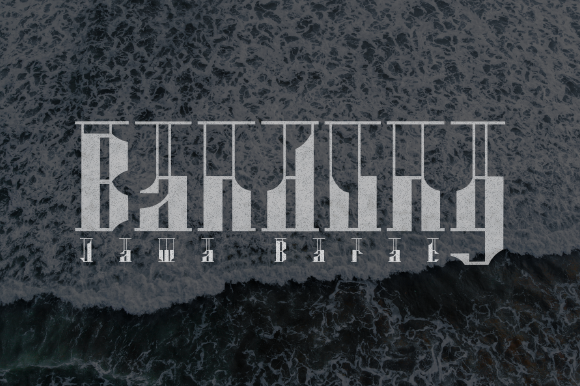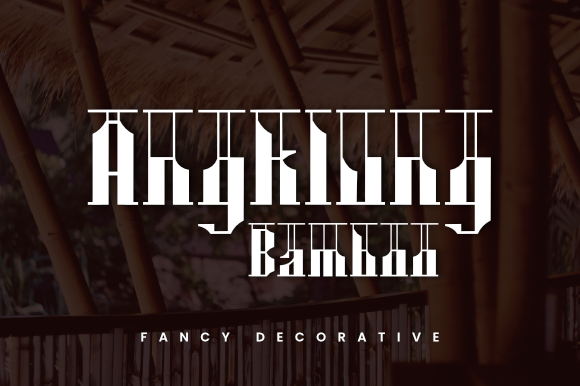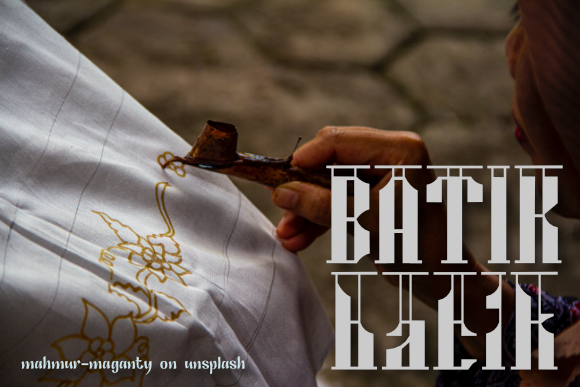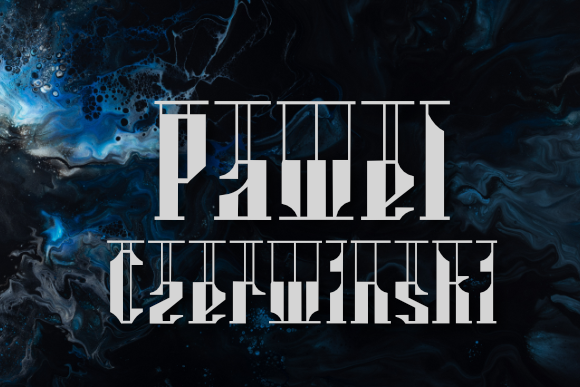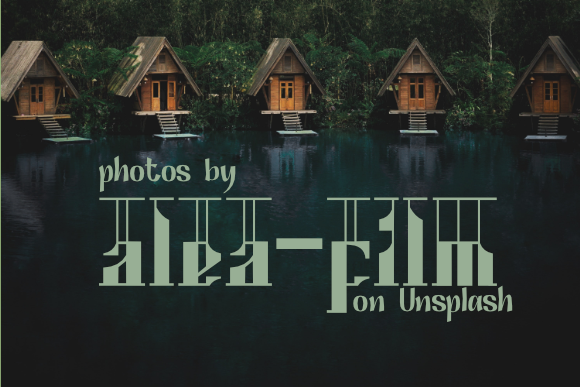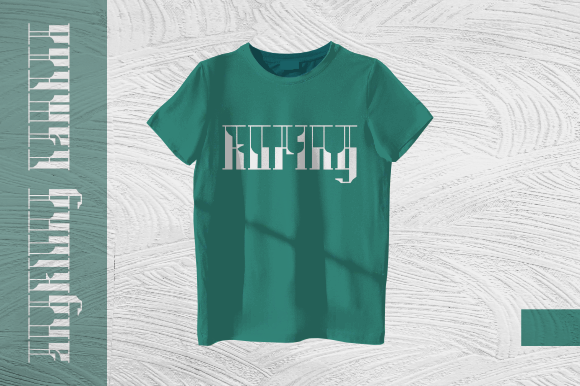
Discover the Unique Charm of Angklung Bamboo Font
In the world of typography, a good font can make all the difference in the success of a design project. For designers and crafters looking for a bold, distinct, and original display font, Angklung Bamboo is an excellent choice. This unique font is sure to enhance any creation, regardless of the topic or theme. In this article, we’ll explore the features and benefits of Angklung Bamboo Font and why it’s a wonderful asset to your font library.
What is Angklung Bamboo Font?
Angklung Bamboo Font is a bold and eye-catching display font that is inspired by the traditional Indonesian musical instrument, Angklung. The font features a distinctive and original design, with bold lines and a unique texture that gives it a natural, handmade feel. The font is perfect for designers and crafters who want to add a touch of cultural flair and personality to their work.
Key Features of Angklung Bamboo Font
- Bold and Distinctive Design: Angklung Bamboo Font features a bold and distinctive design that is sure to grab attention. The font’s unique texture and lines give it a natural, handmade feel that sets it apart from other fonts.
- Original and Unique: Unlike other fonts that are generic and overused, Angklung Bamboo Font is an original and unique design that will add a touch of personality to your work.
- Versatile: Angklung Bamboo Font is versatile and can be used for a wide range of design projects, from posters and flyers to logos and branding.
- Easy to Read: Despite its bold design, Angklung Bamboo Font is easy to read, making it perfect for use in titles, headings, and other display text.
Benefits of Using Angklung Bamboo Font
So, why should you choose Angklung Bamboo Font for your design projects? Here are just a few benefits of using this unique font:
- Adds Cultural Flair: Angklung Bamboo Font is inspired by traditional Indonesian culture, making it a great choice for designers who want to add a touch of cultural flair to their work.
- Enhances Creativity: The unique design of Angklung Bamboo Font is sure to inspire creativity and add a fresh perspective to your design projects.
- Stand Out from the Crowd: With its bold and distinctive design, Angklung Bamboo Font is sure to help your design projects stand out from the crowd.
How to Use Angklung Bamboo Font
Angklung Bamboo Font is easy to use and can be incorporated into a wide range of design projects. Here are a few ideas for using this unique font:
- Posters and Flyers: Use Angklung Bamboo Font to create eye-catching posters and flyers that grab attention.
- Logos and Branding: Angklung Bamboo Font is perfect for use in logos and branding, adding a touch of personality and cultural flair to your brand.
- Social Media Graphics: Use Angklung Bamboo Font to create engaging social media graphics that stand out from the crowd.
In conclusion, Angklung Bamboo Font is a bold, distinct, and original display font that is sure to enhance any creation. With its unique design, versatility, and cultural flair, this font is a wonderful asset to your font library. Whether you’re a designer or crafter, Angklung Bamboo Font is a great choice for adding a touch of personality and creativity to your design projects.